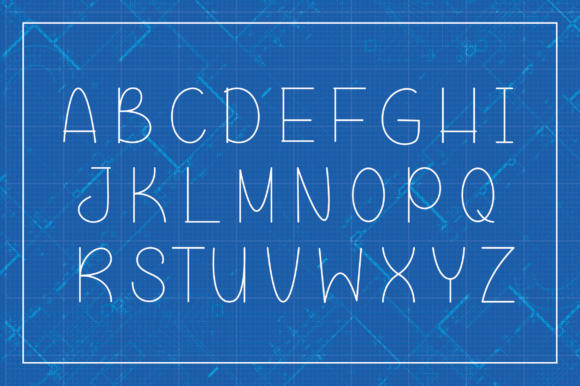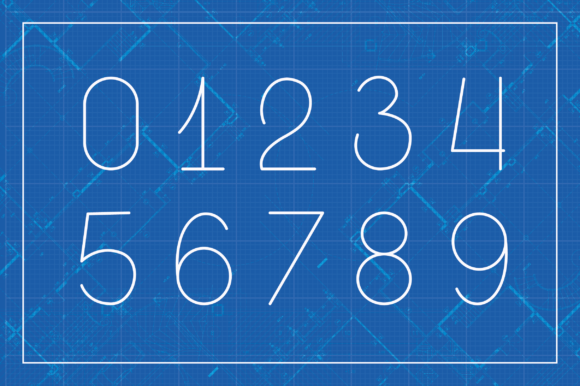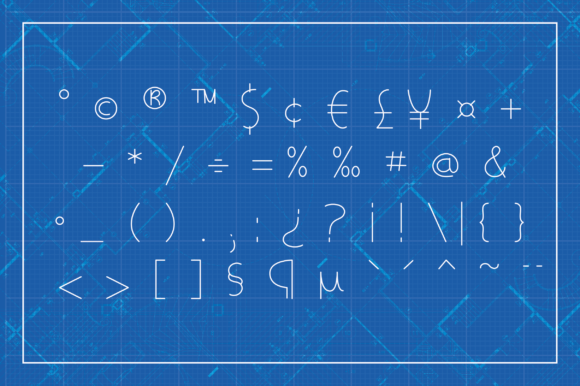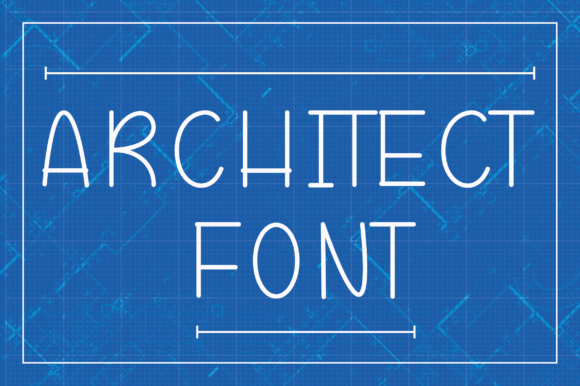
Introducing Architect Font: The Ultimate Choice for Modern Designs
Are you a designer or crafter looking for a font that can elevate your creative projects to the next level? Look no further than Architect Font, a thin lettered and simple sans serif font that is perfect for a wide range of applications. In this article, we’ll explore the features and benefits of Architect Font, and show you how it can make your designs stand out.
What is Architect Font?
Architect Font is a sleek and modern sans serif font that is characterized by its thin letters and clean lines. Its simplicity and elegance make it an ideal choice for designers who want to create a professional and sophisticated look. The font is highly versatile and can be used for a variety of projects, from branding and advertising to packaging and digital media.
Key Features of Architect Font
- Thin lettering: Architect Font features thin letters that are perfect for creating a clean and minimalist look.
- Simple sans serif design: The font’s simple sans serif design makes it easy to read and versatile enough to be used in a wide range of applications.
- Highly legible: Despite its thin letters, Architect Font is highly legible, even at small sizes.
- Easy to pair: The font can be easily paired with other fonts to create a unique and visually appealing combination.
Benefits of Using Architect Font
So why choose Architect Font for your design projects? Here are just a few benefits of using this versatile font:
- Universality: Architect Font can be used for a wide range of projects, from business cards to billboards.
- Professional look: The font’s clean and elegant design gives your projects a professional and sophisticated look.
- Easy to read: Architect Font is highly legible, making it perfect for body text and other applications where readability is key.
- Customizable: The font can be easily customized to fit your brand’s unique style and aesthetic.
How to Use Architect Font in Your Designs
Architect Font is easy to use and can be incorporated into your designs in a variety of ways. Here are a few tips for getting the most out of this versatile font:
- Use it as a headline font: Architect Font is perfect for headlines and titles, where its thin letters and clean lines can make a big impact.
- Pair it with other fonts: Experiment with pairing Architect Font with other fonts to create a unique and visually appealing combination.
- Use it for body text: Despite its thin letters, Architect Font is highly legible and can be used for body text and other applications where readability is key.
| Font Name | Architect Font |
| Author | Danilo Miguel |
In conclusion, Architect Font is a versatile and elegant sans serif font that is perfect for designers and crafters who want to create modern and sophisticated designs. Its thin letters and clean lines make it highly legible and easy to read, while its simplicity and elegance give it a professional and sophisticated look. Whether you’re working on a branding project, creating a website, or designing a craft project, Architect Font is a great choice.